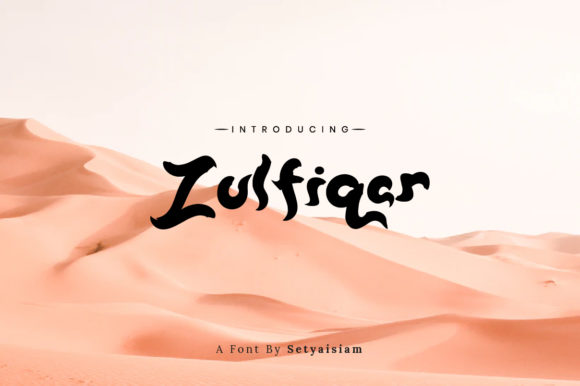
Unleash your creativity with Zulfiqar Font, the ultimate script font for T-shirt designs that will captivate and inspire. Every stroke of this modern and casual handwritten font exudes strength and character, transforming your ideas into stunning visual masterpieces.
Whether you're crafting designs for social media or embarking on personal projects, Zulfiqar Font is your perfect companion. Its effortless flow and distinct style will add a touch of individuality to every creation.
Imagine your T-shirts adorned with the bold strokes of Zulfiqar, turning them into wearable works of art. Its versatility empowers you to create designs that resonate with your audience, leaving an unforgettable impression.
With Zulfiqar Font, you'll discover a world of possibilities for self-expression. Unleash your imagination and let your designs take center stage. Its intuitive nature makes it perfect for beginners and seasoned designers alike.
Join the creative revolution and embrace the power of Zulfiqar Font today. Let your T-shirt designs soar to new heights of creativity and originality. With this exceptional font at your fingertips, the only limit is your imagination.